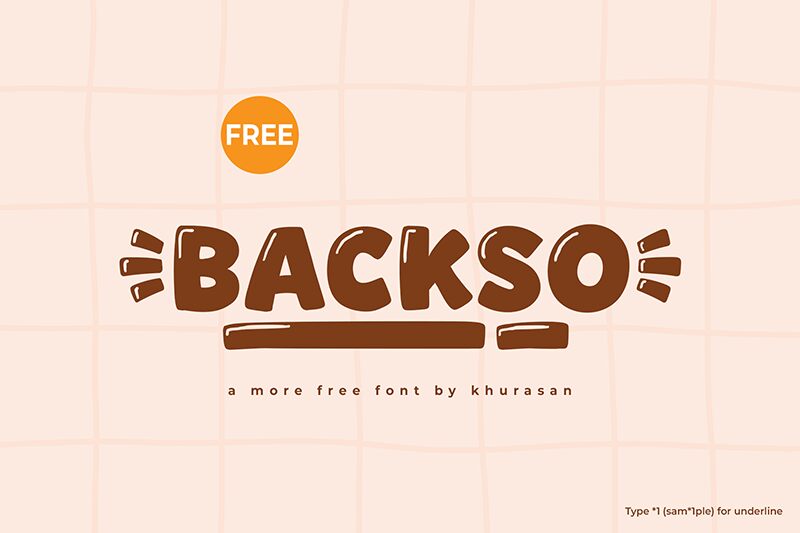
Backso
Backso font by Khurasan is a display cartoon-friendly free font that has been crafted with perfection. A strong presence stems from its compact bold rounded letters, thus presenting a clear message to its readers. Accordingly, the modern font can be used with minimal text or slightly longer texts for joyful designs expanding on what they have to offer.
Greeting cards, comic books, posters, postcards, brochures, party invitations, stationery items such as notebooks and pencil boxes can feature this marvelous tool. Magazine spreads and newspapers can also present their headlines using Backso for an original reading experience like no other which recalls a cartoonish style.